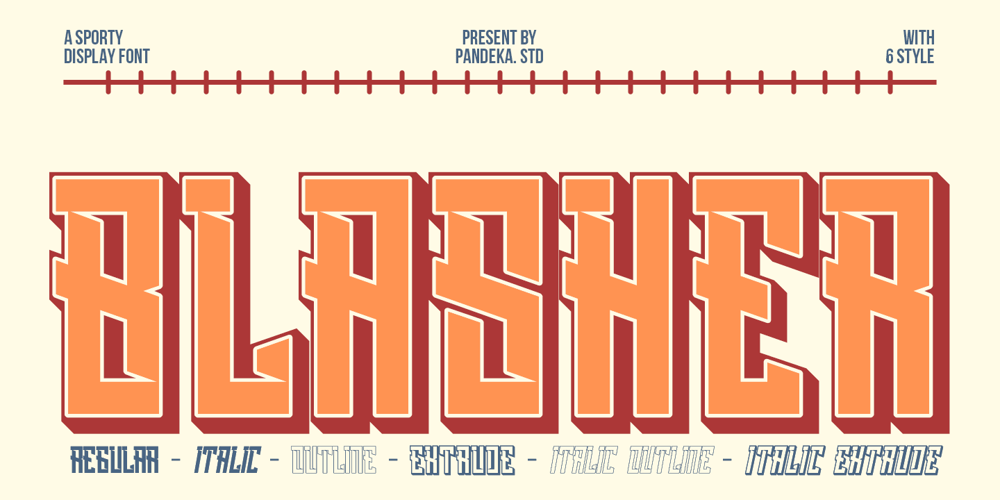
Blasher Font Family was designed by Sagara Nararya and published by Pandeka Studio. Blasher contains 6 styles and family package options. Introducing Blasher, a sporty display font with a condensed slab style that packs a punch!Blasher is crafted to elevate your designs with its dynamic and athletic feel, ideal for invoking the spirit of sports, particularly baseball. This font offers 6 styles: Regular, Italic, Outline, Italic Outline, Extrude, and Italic Extrude,** providing versatility for logos, branding, posters, and more.It stands out with a strong presence and unique character, capturing the essence of athleticism and competitive spirit. Whether for sports-themed projects or energetic designs.What do you get? Blasher Main Files 6 styles: Regular, Italic, Outline, Italic Outline, Extrude, and Italic Extrude Unique letterforms Multilingual support Works on PC & Mac Simple Installations Accessible in Adobe Illustrator, Adobe Photoshop, Microsoft Word, and even Canva PUA Encoded Characters Fully accessible without additional design software Uppercase Drop any message if you have any questions. Thanks!Pandeka Studio